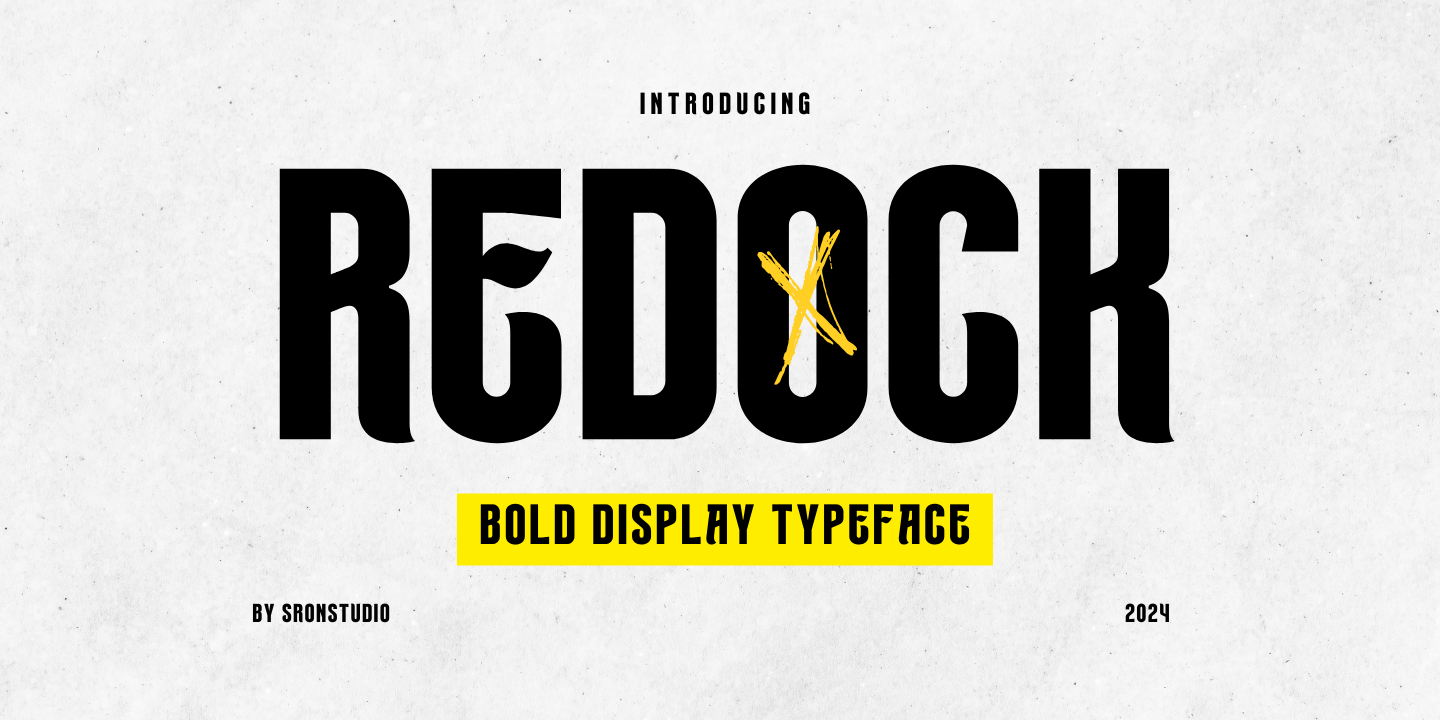
The Redock Font is perfect for industrial branding projects, urban design layouts, construction company logos, architectural firm identities, manufacturing business cards, heavy machinery packaging, warehouse signage, and rugged outdoor equipment branding. This powerful typeface excels in projects for engineering companies, construction firms, automotive brands, steel fabrication businesses, and industrial service providers that need strong, dependable visual communication.
What makes the Redock Font exciting is its robust industrial character that conveys strength, reliability, and mechanical precision. The font features bold, structural letterforms with engineering-inspired details that create an immediate association with durability and professional craftsmanship. Its solid construction and unwavering stability make it perfect for brands that need to communicate trustworthiness, expertise, and industrial competence. The font's commanding presence and technical aesthetic establish instant credibility in heavy industry sectors.
The Redock Font family includes multiple industrial-strength variations: Regular, Bold, Heavy, Condensed, Extended, and Stencil versions. Each style maintains the font's industrial authenticity while offering different visual densities and spatial applications. The family also features technical symbols, engineering marks, and industrial-specific characters that enhance professional design projects.
Whether you're developing industrial brand identities, creating technical documentation, or designing heavy-duty marketing materials, the Redock Font Free Download provides the ultimate solution for projects requiring industrial-strength typography. This exceptional typeface brings authentic industrial character to professional design work, making it an essential tool for designers working in manufacturing, construction, and engineering industries.